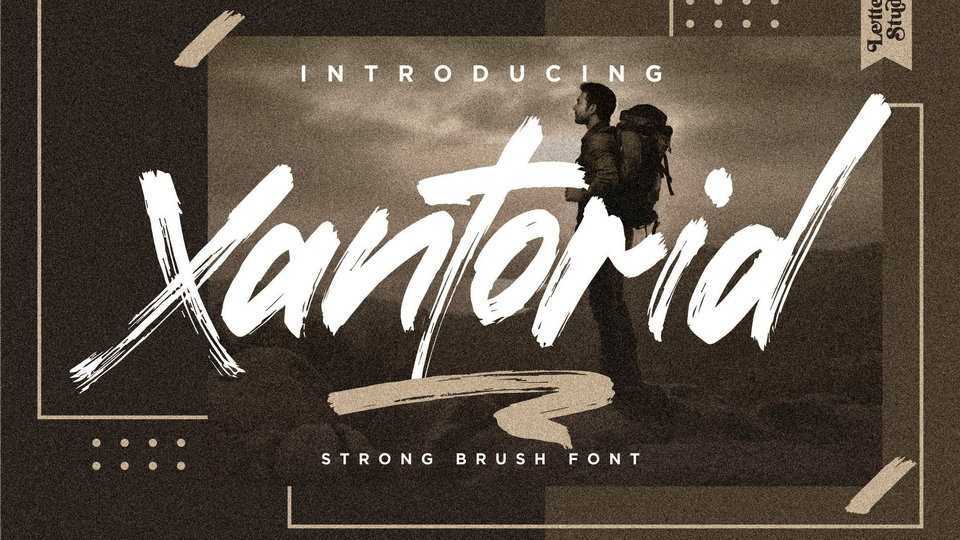
Download Xantorid font, a premium hand painted brush typeface with an authentic texture. Xantorid is suitable for any projects such as: logos, branding, product packaging, t-shirts and more.
Designer: Letterena Studios